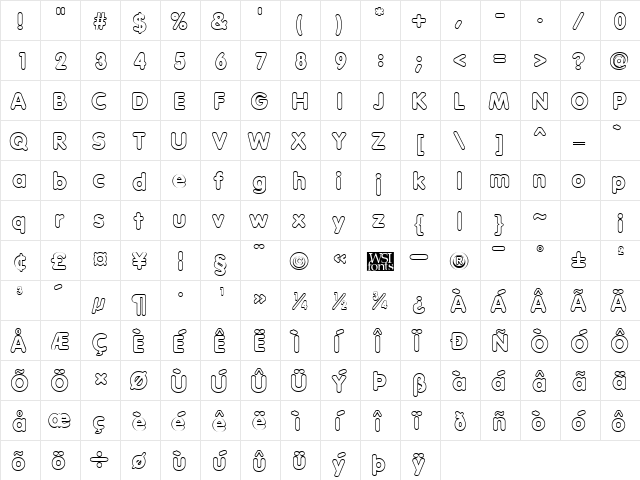
VagabondOutline Regular
Design Context for VagabondOutline Typeface
VagabondOutline is built around its visual character rather than neutral utility — its distinctive forms are designed to make an impression at display sizes.
Font Pairing: Pair with a clean neutral sans-serif for body copy to let VagabondOutline's character lead without overwhelming the composition.
Pro Tip: Use VagabondOutline exclusively at display sizes — it was designed to be seen, not read at length. Let a neutral companion handle body copy.